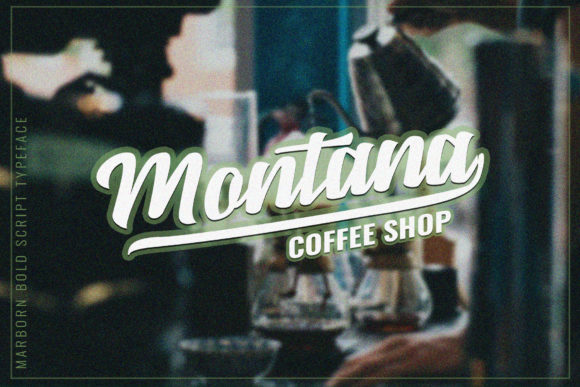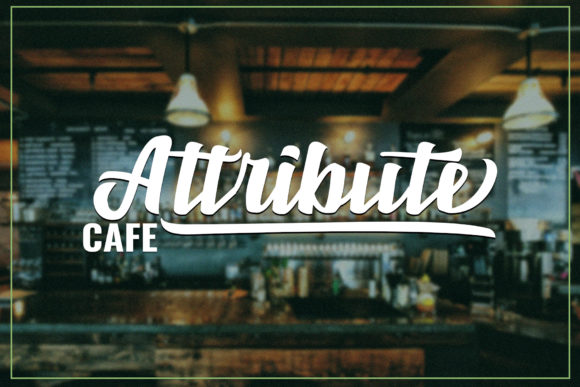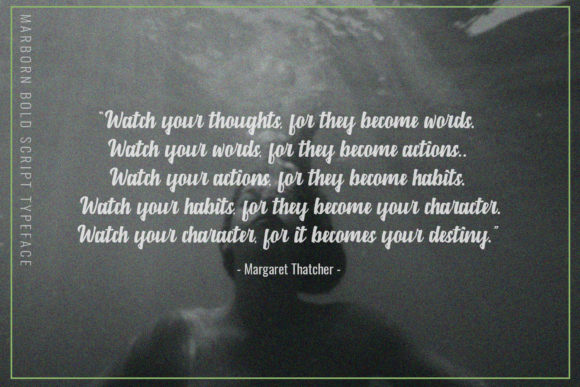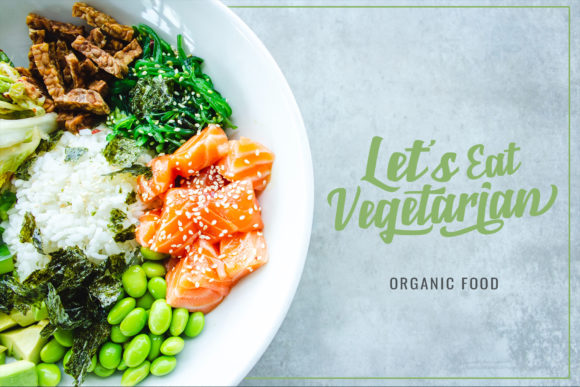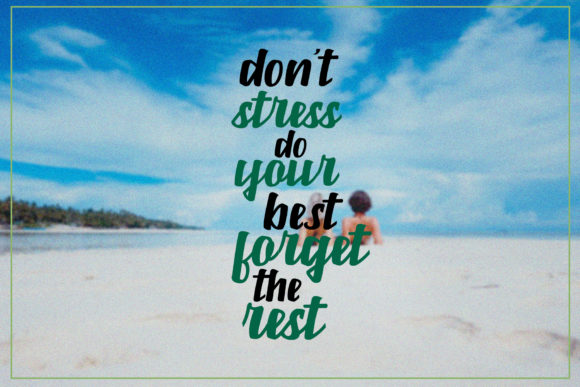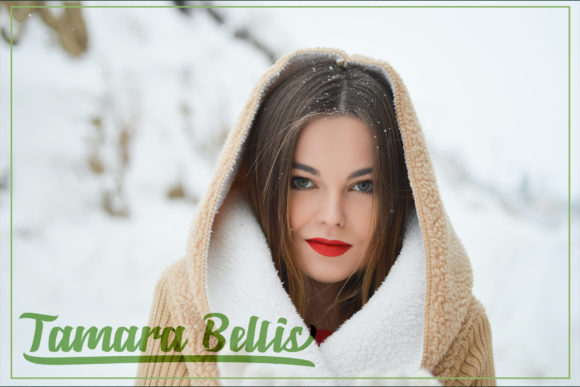
Introduction to Marborn Font
Have you ever stumbled upon a vintage typewriter or an old handwritten note that sparks your creativity? For designers, that moment is often the starting point of a new project. It’s the thrill of discovering a unique design element that can elevate your work and make it truly special. That’s exactly what the Marborn Font is all about – capturing the essence of handwritten history and infusing it into your modern designs.
As a high-quality design resource, the Marborn Font is a valuable addition to any creative project. Its bold, vintage style reads as strong, confident, and dynamic, making it perfect for designers who want to add a touch of nostalgia to their work. Whether you’re working on a free download or a paid project, this font is sure to make your designs stand out from the crowd.
Key Features of Marborn Font
- High-quality design for creative projects, offering a unique aesthetic to enhance visual appeal.
- Size: Marborn Font is available in 3 different font sizes, including a bold, regular, and light weight.
- Resolution: Optimized for high-resolution displays, ensuring crisp and clear text rendering.
- Unique characteristics include a modern, minimalist design and a wide range of glyph support, making it suitable for various creative projects.
Honest Review: Marborn Font
I recently had the chance to work with the Marborn Font, and I must say it’s been a game-changer for my design projects. This high quality font has a unique, modern aesthetic that’s perfect for a creative project.
- ✨ I love the transparent background, which makes it super easy to overlay on top of other design elements.
- ✨ The font is highly versatile and can be used for a wide range of design styles, from minimalistic to bold and playful.
However, I did notice a few limitations with the Marborn Font:
- ⚠️ The font doesn’t come with a lot of character variations, which might limit its use in certain design scenarios.
- ⚠️ The font is not optimized for use in very small sizes, which can lead to some pixelation issues.
Overall, I’m really impressed with the Marborn Font and would definitely recommend it to designers looking for a high quality, modern font for their creative projects.
Marborn Font
The Marborn Font is a high-quality design resource perfect for creative projects that require a touch of elegance. With its transparent background, it’s ideal for overlaying text on images or using as a standalone font.
Tips for Getting the Most Out of Marborn Font
For the best results, use the Marborn Font in combination with high-quality images and a clear design concept. Experiment with different font sizes and colors to find the perfect look for your project.
The Marborn Font is perfect for a variety of creative projects, including:
- Business presentations and reports
- Social media graphics and ads
- Book covers and interior design